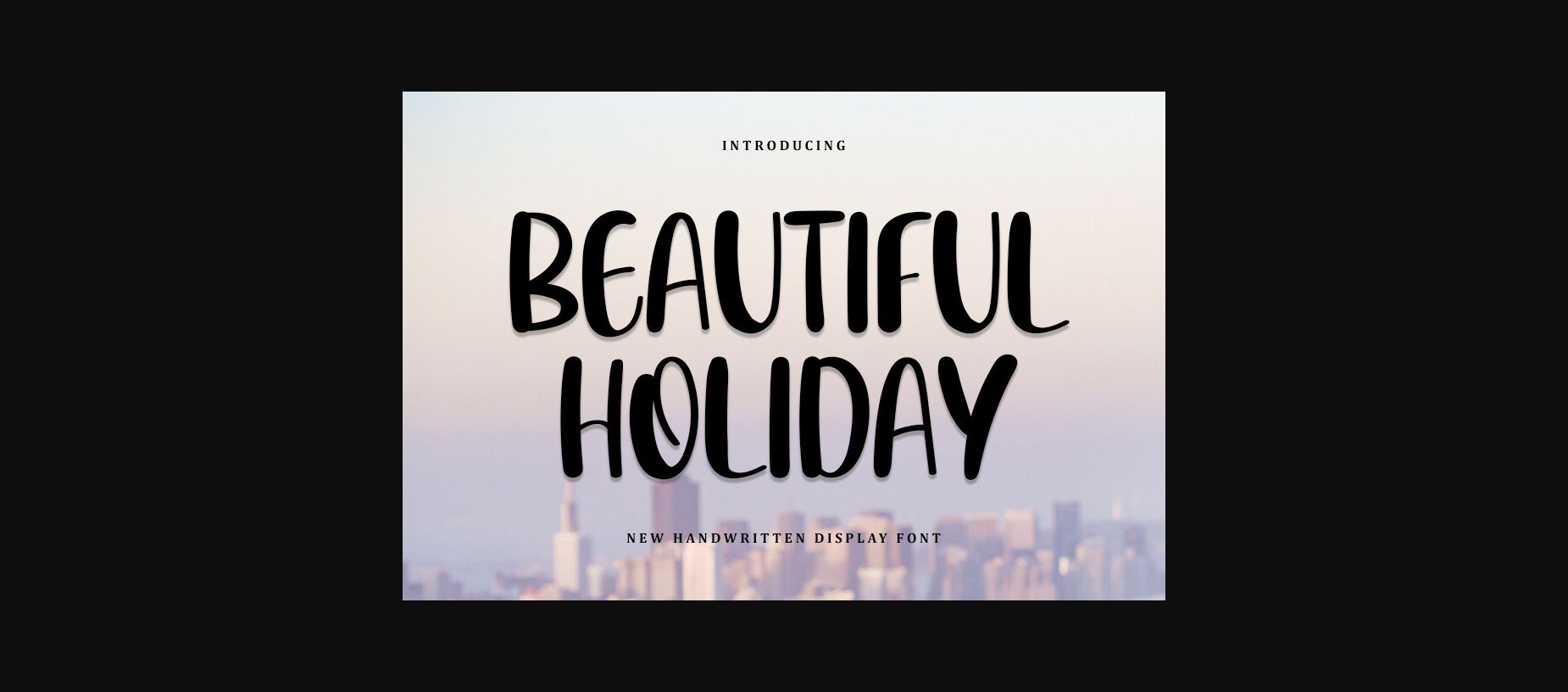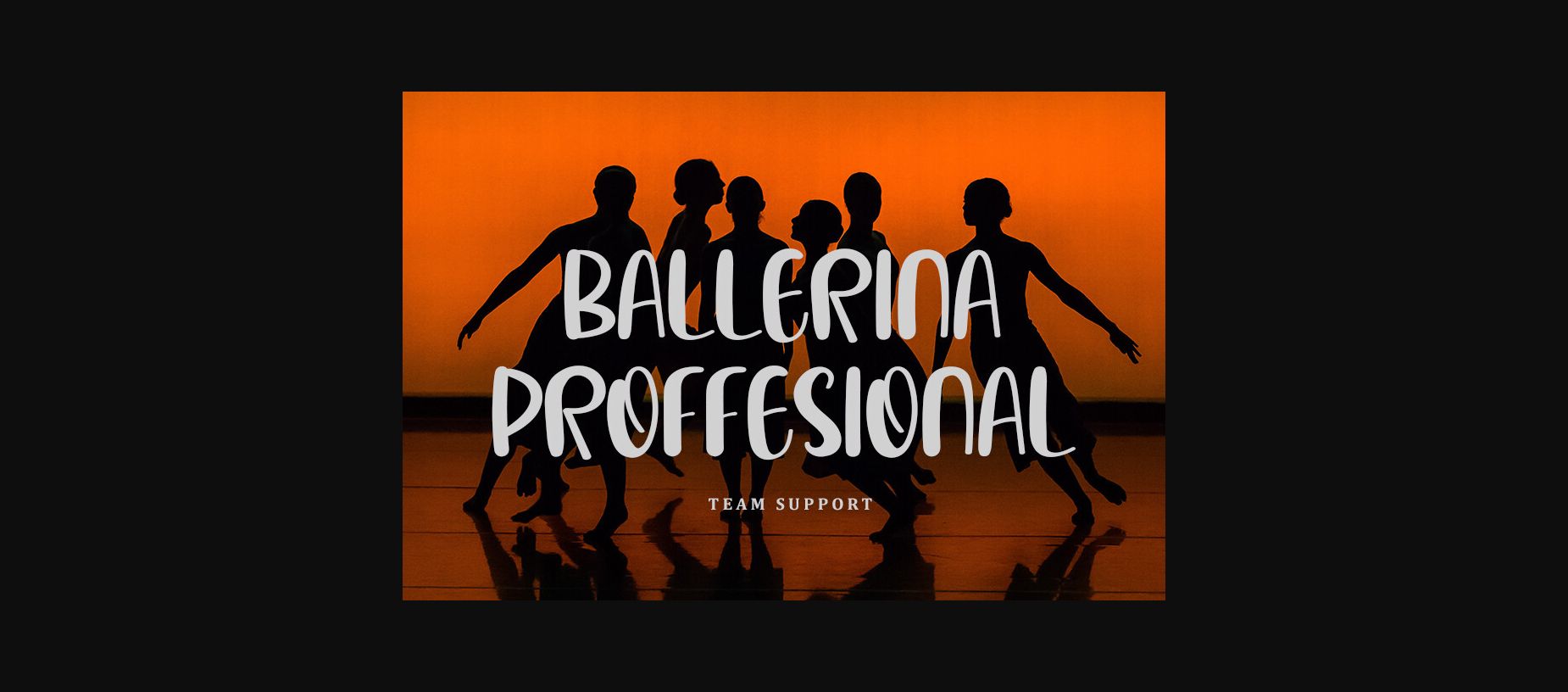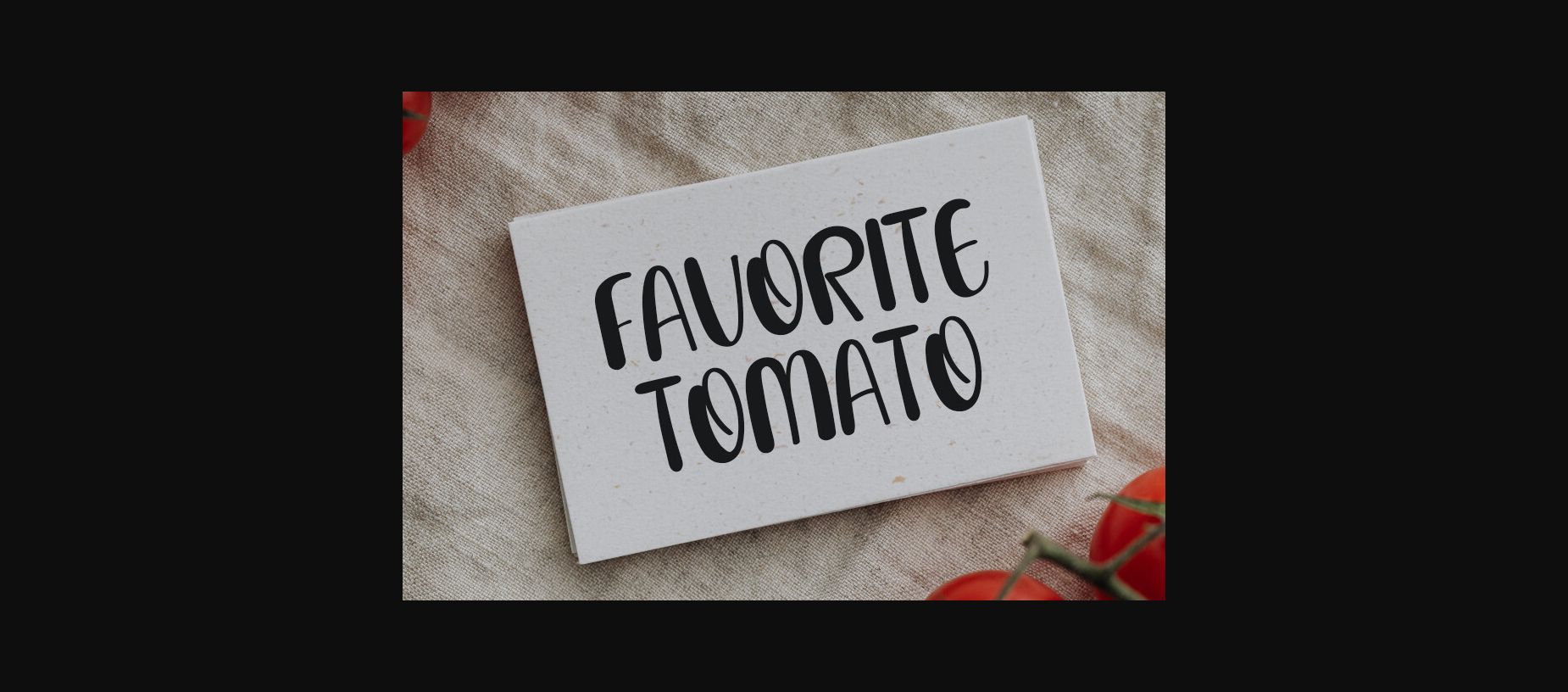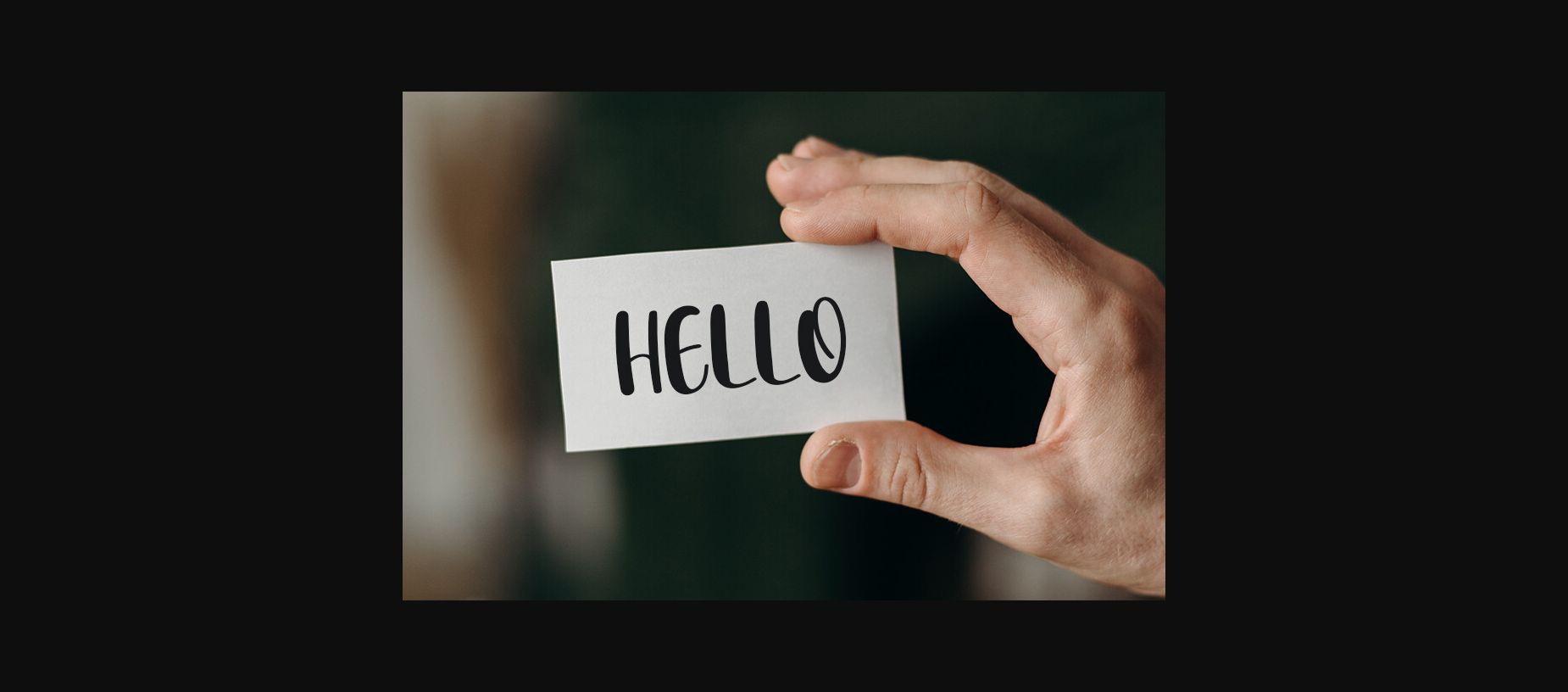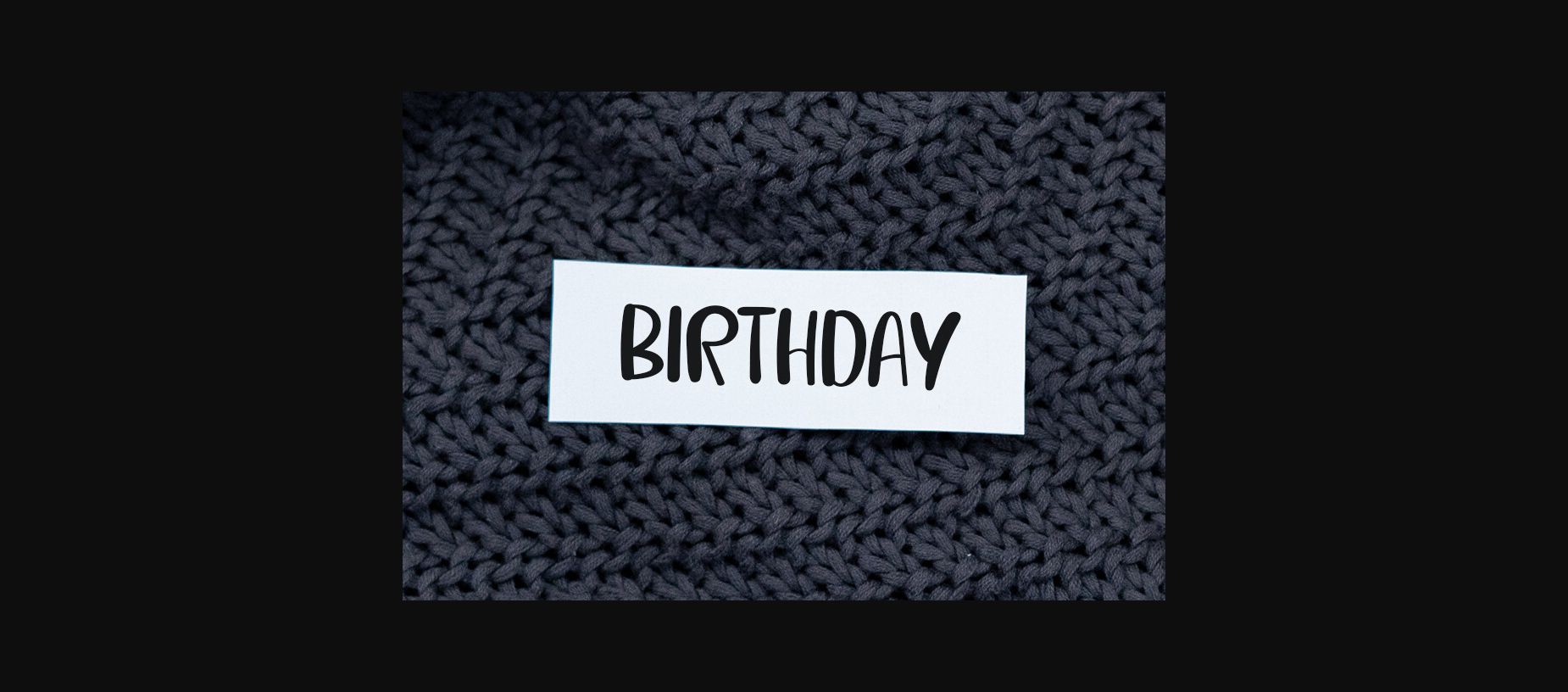
Beautiful Holiday Font
Beautiful Holiday is a neat and beautiful sans-serif font described by an elegant touch, perfect for your favorite projects. Fall in love with its incredibly distinct and timeless style, and use it to create spectacular designs!